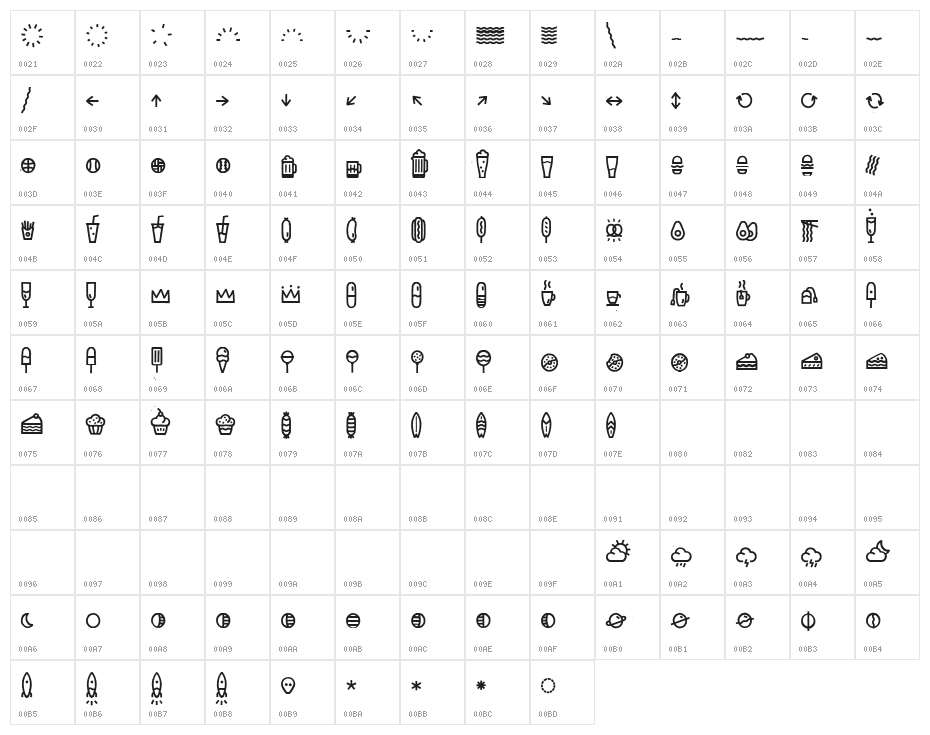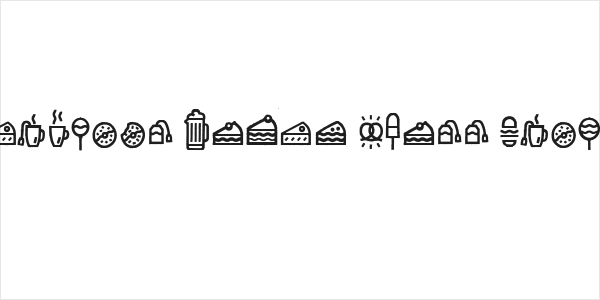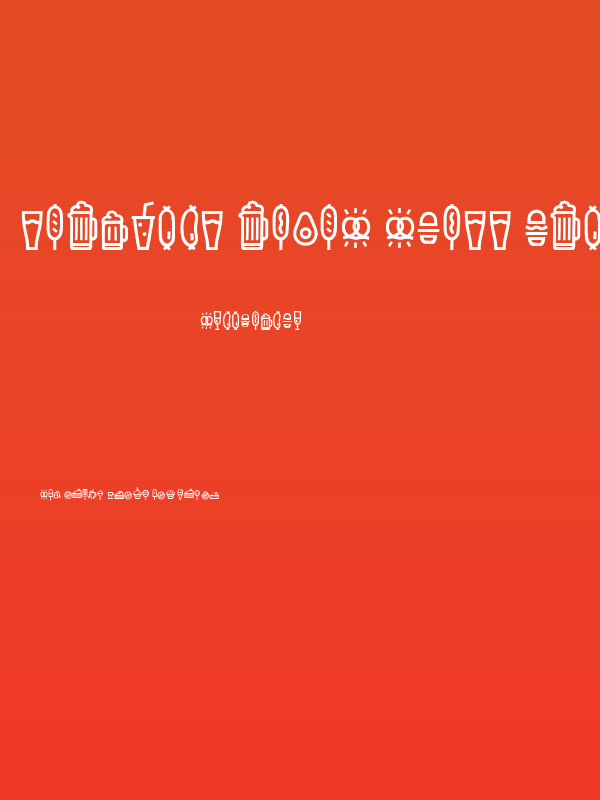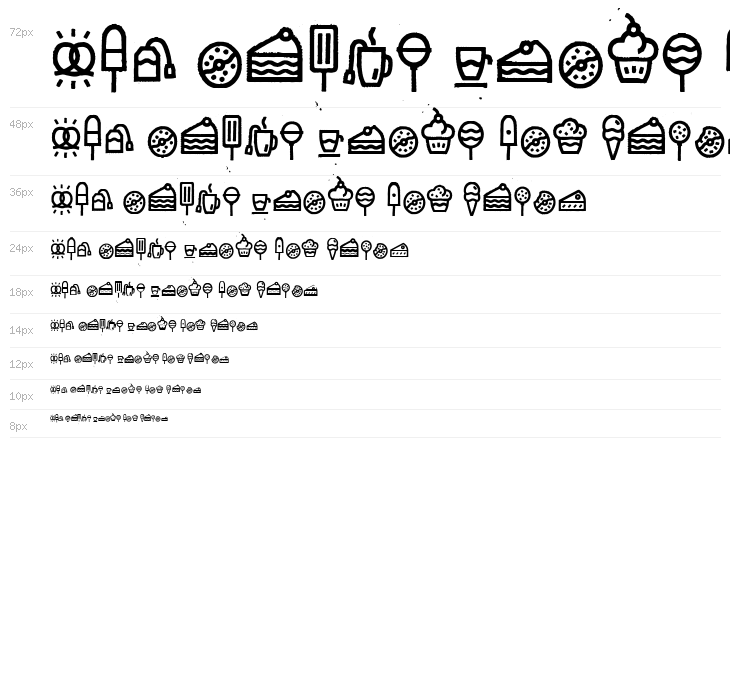
Escalope Crust Three Icons Font
Escalope Crust Three Icons Description
This is a playful and illustrative icon set featuring a variety of food and drink items, along with directional arrows and decorative elements. The icons are bold and outlined, giving them a cartoonish and approachable feel. Each icon is distinct, with clear lines and minimal detailing, making them easily recognizable. The set includes items like burgers, hot dogs, ice cream, coffee cups, and various beverages, as well as cakes and muffins. The directional arrows and decorative lines add a functional aspect to the set, making it versatile for various design projects.
| Overall Style | Playful and Cartoonish |
| Use Case | Icons for menus, apps, and decorative elements in design projects. |
| Proposed Projects | Ideal for use in restaurant menus, food blogs, mobile apps, or any project requiring fun and engaging food-related icons. |